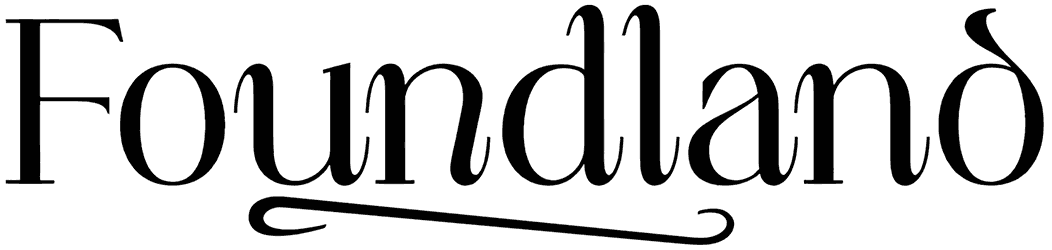
Foundland Font
Here is a classic and elegant font with a matchable style. Foundland possesses a timeless and lovely face that can be used for any formal or informal design. There is no offer for numerals, but having two styles will make up for this lack. Set Foundland on your creative designs, namely logos, flyers, cards, or the like, and have a delight.